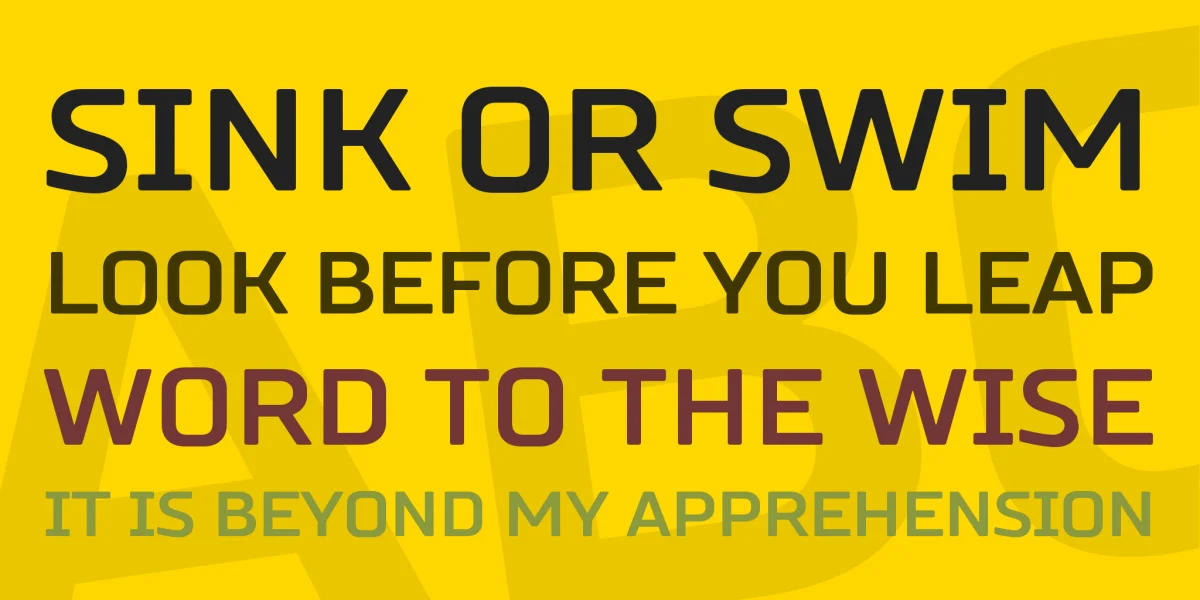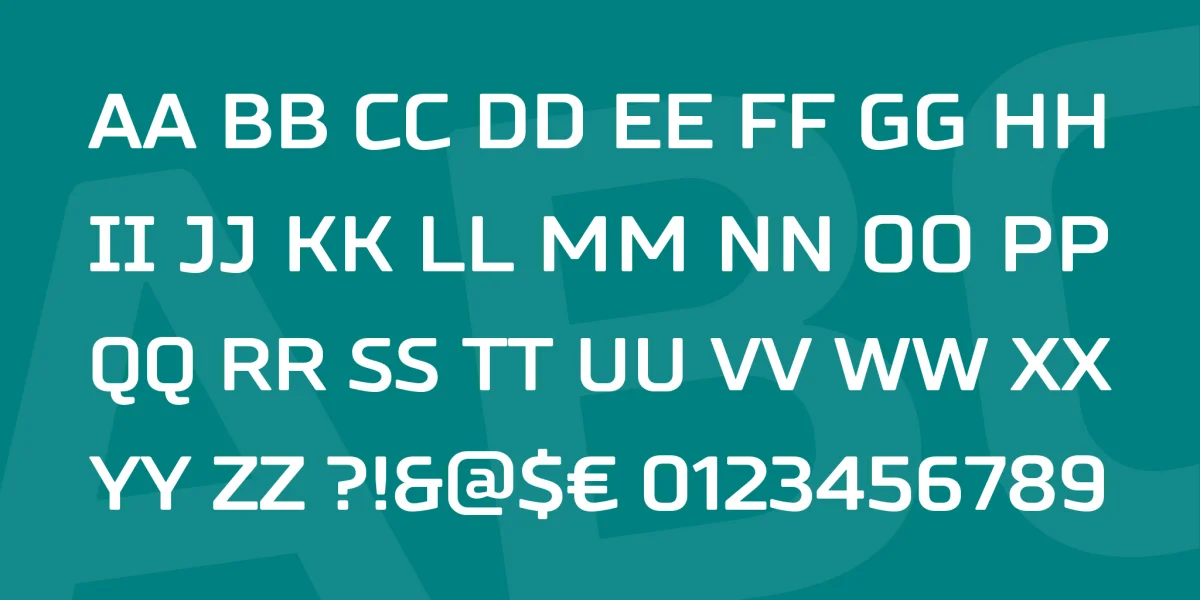
Russo Sans is a modern extension of the legendary free font Russo. The font became more trendy and smooth. Now this is a text font family. We added in this font family new typefaces and support for many codepages and languages.
The fonts are very convenient to use in web, mobile apps and in desktop computers. The font family Russo Sans contains many languages and alphabets, as well as compatible with other TypeType fonts.